45+ Best Modern & Futuristic Fonts to Give your Design Stylish Look
If you are searching for a great-looking font with a little bit of an edge, look no additional than this assortment of recent fonts. And this assortment of the very best trendy and futuristic fonts is a good place to start out!
This roundup filled with smooth, elegant, and versatile fonts is ideal for all types of recent designs, from web sites to printed materials.
If you’re within the means of attempting to find one, scroll down. We’ve discovered 45+ superior and completely free trendy & futuristic fonts you should use to design.
Many of those work greatest when set at bigger sizes, however we’ve additionally included just a few which might be extra versatile and lend themselves to elements of design aside from headlines or quotes.
45+ Best Modern Fonts
Leoscar
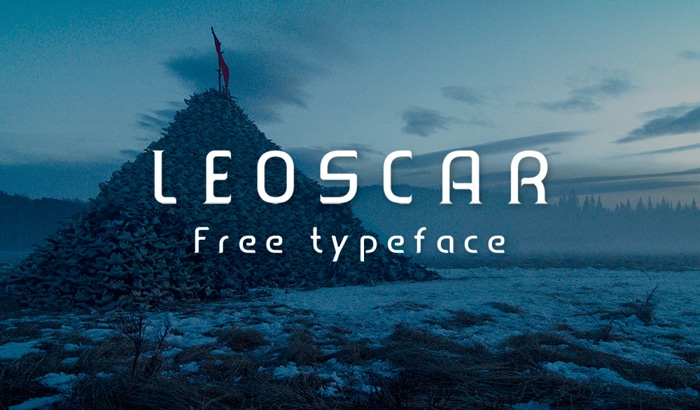
Leoscar is a contemporary Typeface that has been developed below a tutorial course on the Department of Multimedia & Creative Technology, Daffodil International University. LEOSCAR is a model new typeface that we’ve created particularly for stunning headline designs.
This trendy font set designed by Faridul Haque has each serif and sans serif variations. The sans serif set is neat and clear with completely different type curves and straight angles.
Azonix
Azonix is a contemporary sans-serif typeface. This typeface consists of daring geometric higher case letters, numbers and punctuation (symbols).
This geometric minimalistic font is trendy in all the proper methods. All the letters are completely sized to suit collectively on an excellent line.
Azonix is an uppercase font designed by Mixo! and a fantastic selection for headlines and logos. The “A” with no crossline provides Azonix a splendidly distinctive look.
Munich
Munich, is a ravishing font, with a tint weight good for including some romance and allure to your designs! It is was designed and shares by Bang Toyib.
This font capabilities most strongly as a show or headline font. appropriate for emblem, logotype, branding, marriage ceremony, style, label, e-book cowl, t-shirt, Instagram put up, and others.
Also, this font is superb for various initiatives ex: images, watermark, quotes, weblog header, poster, marriage ceremony, branding, emblem, style, attire, letter, invitation, stationery, and so on.
One Day
One Day is a slim trendy font designed by Nawras Moneer, a graphic designer from Irbid, Jordan. One Day is a purposeful geometric uppercase typeface, with a pleasant minimize in letters and a smooth construction, giving it a robust persona whereas nonetheless conserving readability excessive.
Following a uniform baseline and padding round provides extra worth in its texture. Just a few letters together with with this fundamental font household possess strains cut up as you’ll be able to see within the picture right here.
Coves
Coves is a free font featured by common curves, very best for titles and emblem design. It contains two weights, gentle and daring. Designed and launched by Jack Harvatt.
Coves Font Family is a sans serif typeface that is available in two types gentle and daring. This font together with its easy rounded edges and full glyphs help is among the greatest textual content varieties you’ve got ever seen.
Font household includes common curves, huge language help, and eager options. Another astonishing benefit of this elegant font household is that it’s completely free.
Coco Gothic
Coco Gothic is a up to date tackle the retro geometric sans serif type of early XX century typefaces like Futura and Avenir. The title of the typeface household comes from the nickname of style beloved icon Coco Chanel.
The chilly, geometric shapes typical of these modernism typefaces have been made softer and extra up to date by visible corrections and barely rounded corners and a minimalistic design really feel.
It is available in six weights with matching italics and options an prolonged character set with open sort help for small caps, ligatures, alternates, European languages, Greek and Cyrillic alphabets.
Pier
Pier is trendy and structured typography. The thought was to create a barely off geometric font that might look nearly as good huge or very small.
The thought was to create a barely off geometric font that might look nearly as good huge or very small. It was made to suit your on a regular basis designs and textual content wants.
Each font on this household is impactful dynamic and authoritative and has individuality whereas being cohesive. Spacema is suited for a lot of purposes like Heading, Posters, Magazines, Packaging, Branding & Identity, Photography, Fashion, and so on.
The empty area contained in the letter is skinny and completely sized, making this font look steady and crowd pleasing.
Your Turn